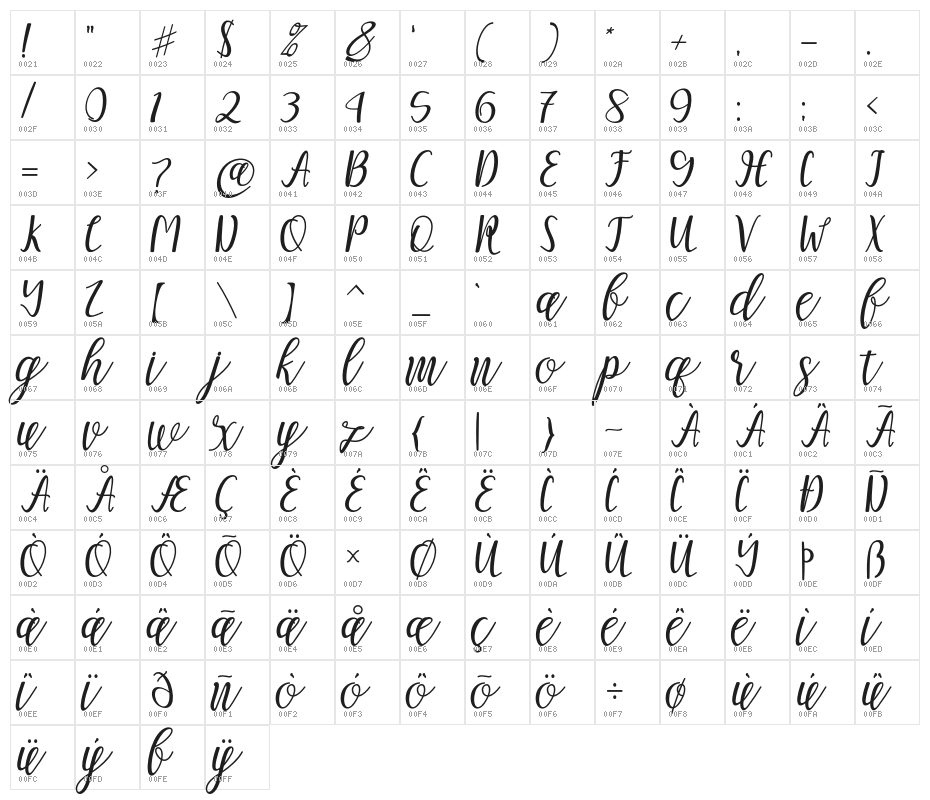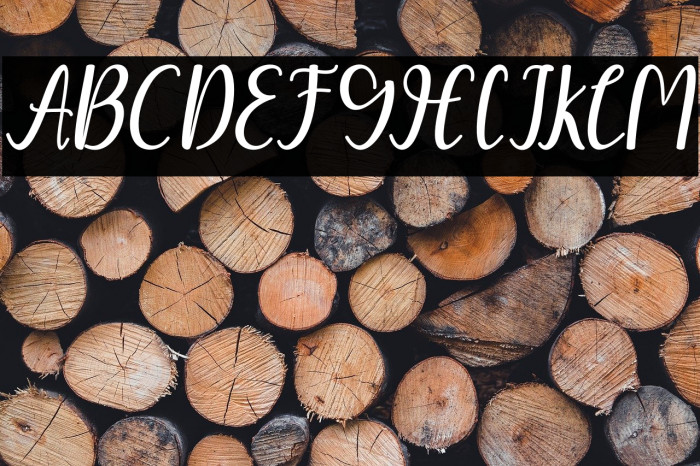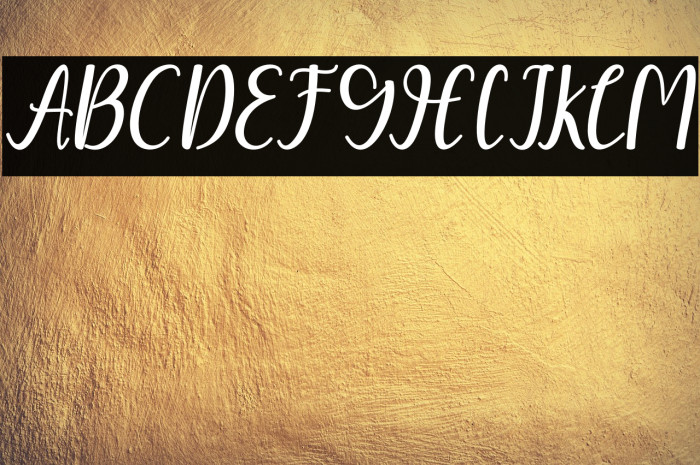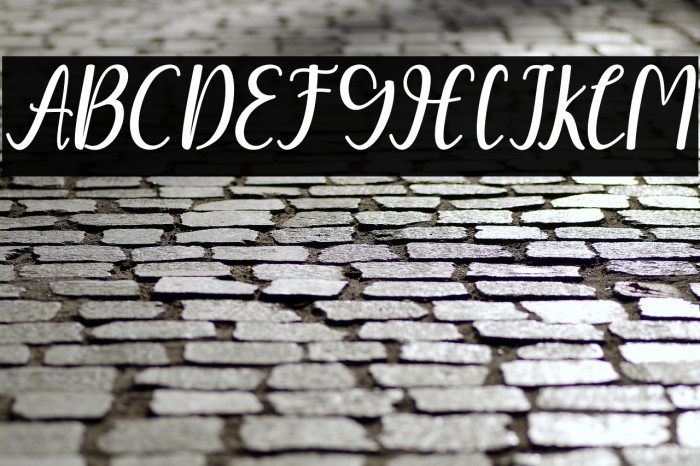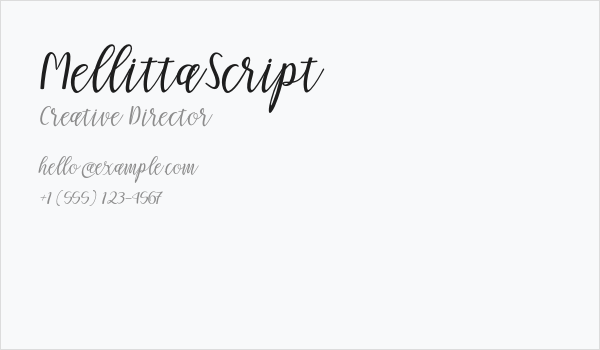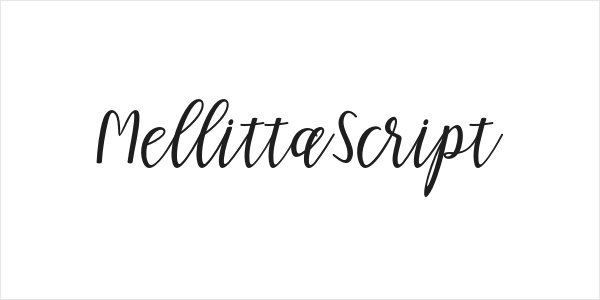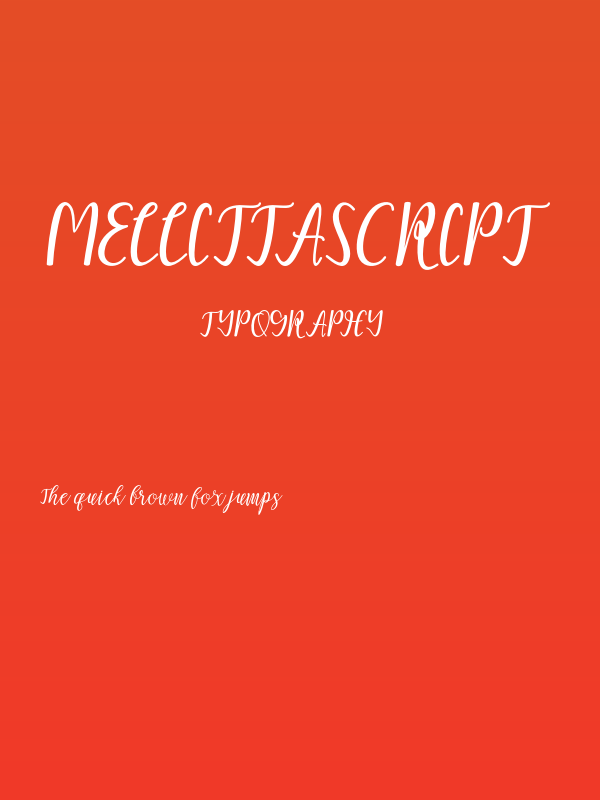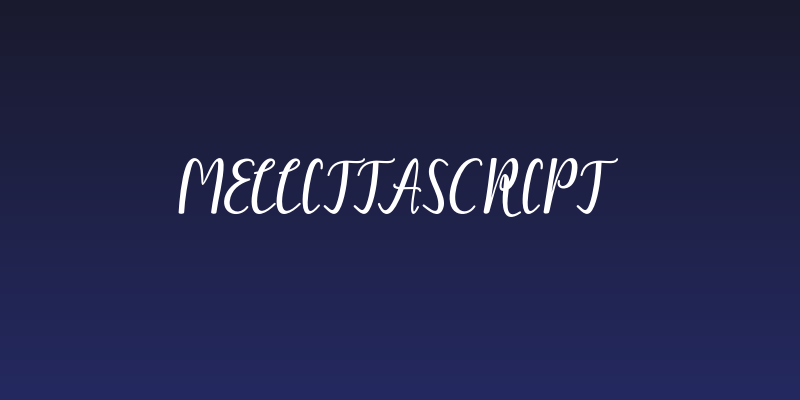
MellittaScript Font
MellittaScript Description
This font exudes a lively and elegant script style, characterized by its fluid, cursive strokes and smooth transitions between letters. The uppercase letters are bold and sweeping, with a distinct flair that adds a touch of sophistication. The lowercase letters maintain a consistent flow, enhancing readability while preserving the font's artistic nature. Numbers are crafted with the same attention to detail, ensuring they blend seamlessly with the alphabet. Special characters are thoughtfully designed to complement the overall aesthetic, making this font versatile for various creative applications.
| Overall Style | Elegant |
| Use Case | Logos, Invitations, Decorative text |
| Proposed Projects | Ideal for wedding invitations, branding, greeting cards, and elegant signage. |